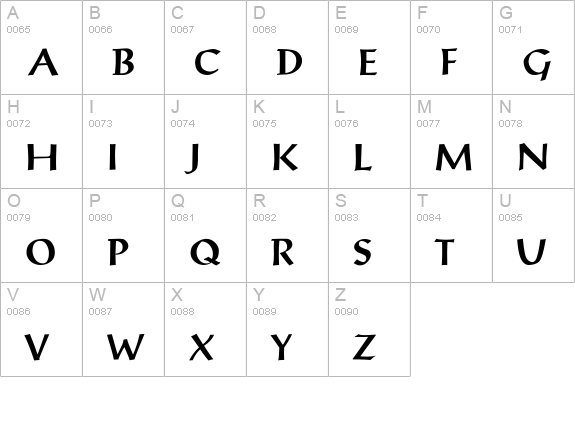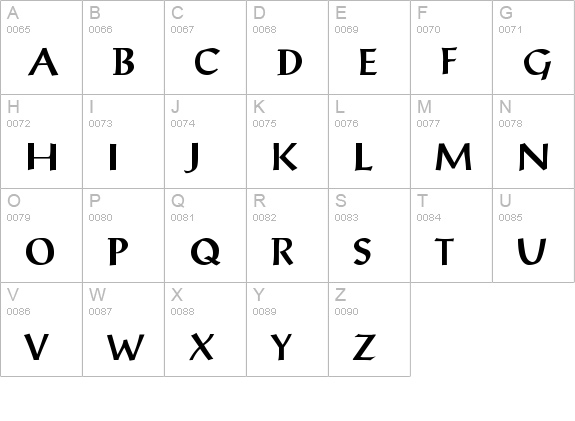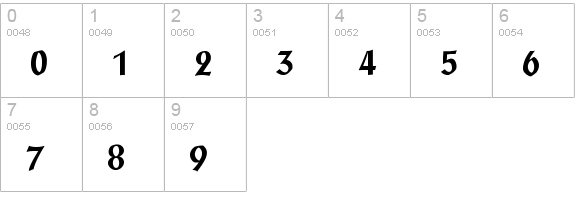
PostAntiqua-SemiBold is a sub-bold, structured variant in the PostAntiqua typeface family \xE2\x80\x94 well suited to sub-headlines and emphasised passages.
PostAntiqua-SemiBold is a visually striking and versatile font that exudes a sense of timeless elegance and sophistication. With its strong and commanding presence, this typeface is perfect for making a bold statement in any design project. The semi-bold weight adds a touch of modernity while still retaining the classic charm of its antique roots. What sets PostAntiqua-SemiBold apart is not only its aesthetic appeal but also its accessibility. This premium font is available for free download exclusively at FontsMarket.com, making it a valuable addition to any designer's toolkit without breaking the bank. Whether you're creating a logo, poster, or website, PostAntiqua-SemiBold will elevate your design with its unique blend of tradition and contemporary style. Enhance your projects with the distinctive beauty of PostAntiqua-SemiBold and experience the seamless blend of history and innovation in every letterform. Download this remarkable font today and let your creativity soar to new heights.